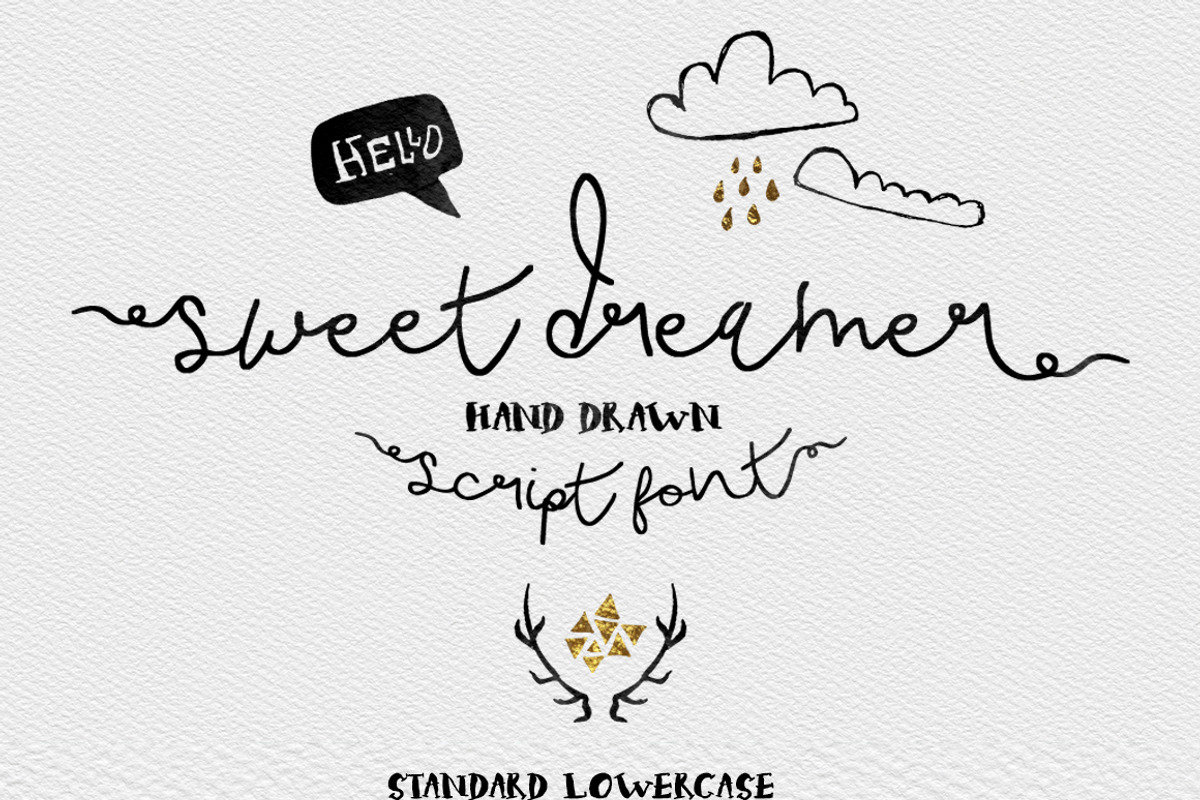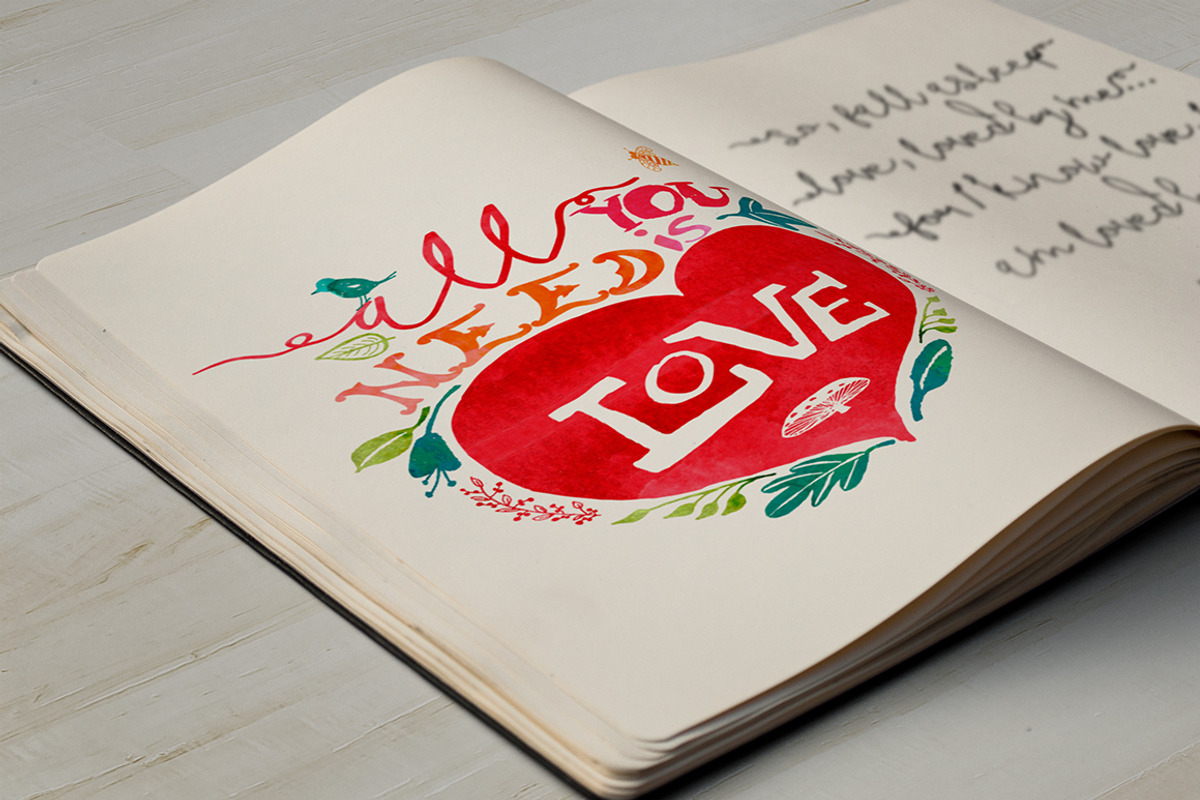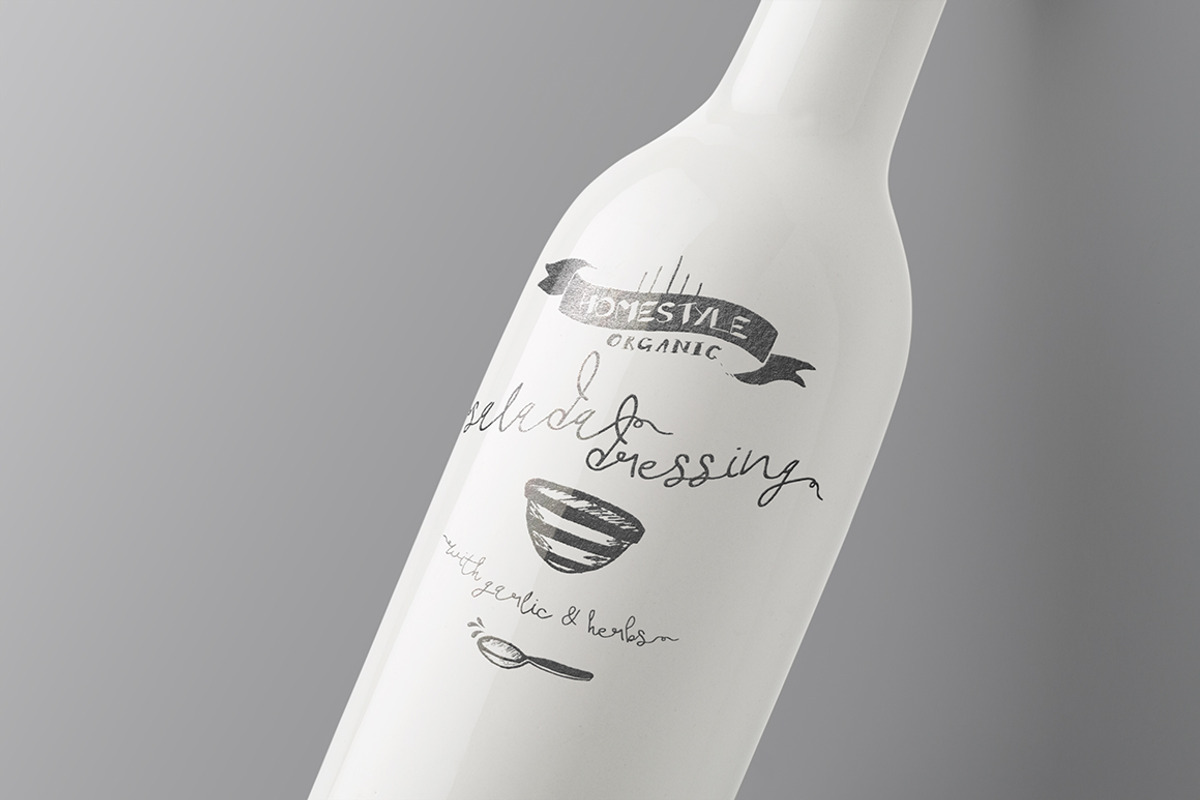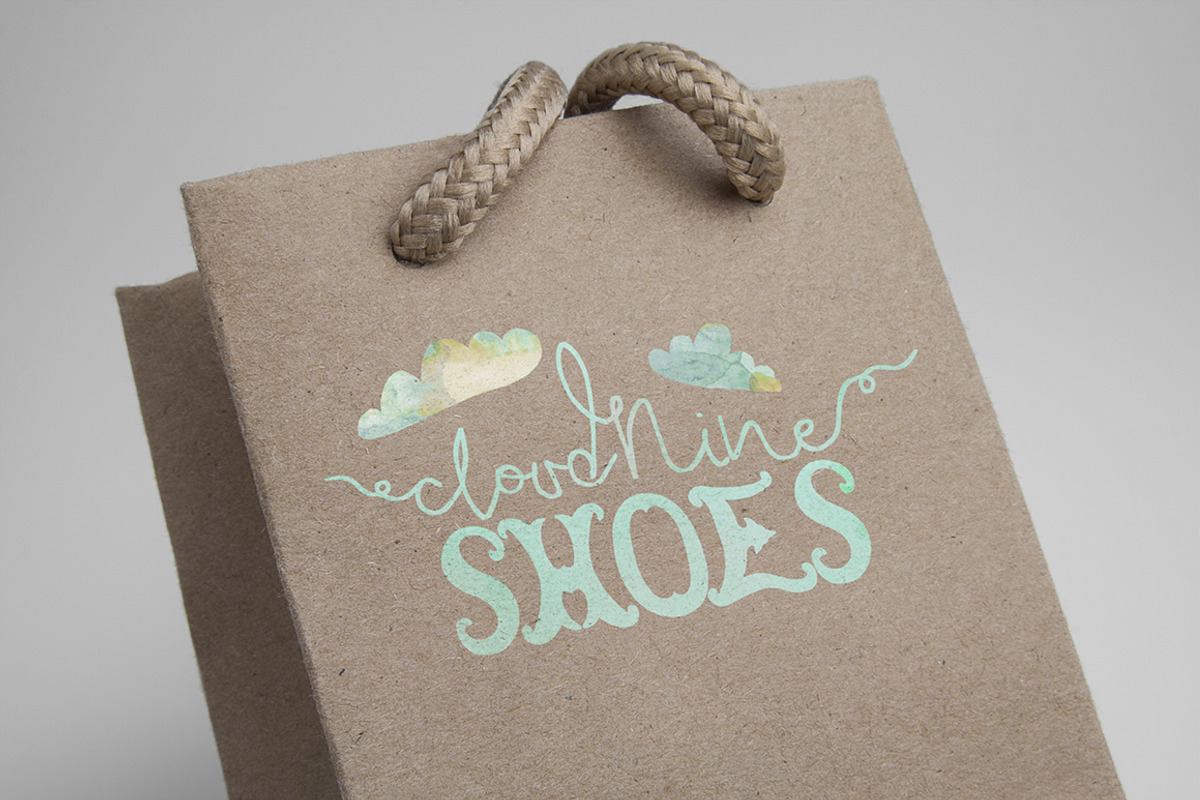
Sweet Dreamer Script Typeface -20%
Sweet Dreamer Script Typeface -20% by Creativeqube Design is a font selected for branding, posters, packaging, typography.
- Use Uppercase for left swashes, lowercase for right swashes.
- Sweet Dreamer Regular
- Sweet Dreamer Swashes Regular
Sweet Dreamer Script Typeface -20% by Creativeqube Design fits naturally into Branding, posters, packaging, typography.